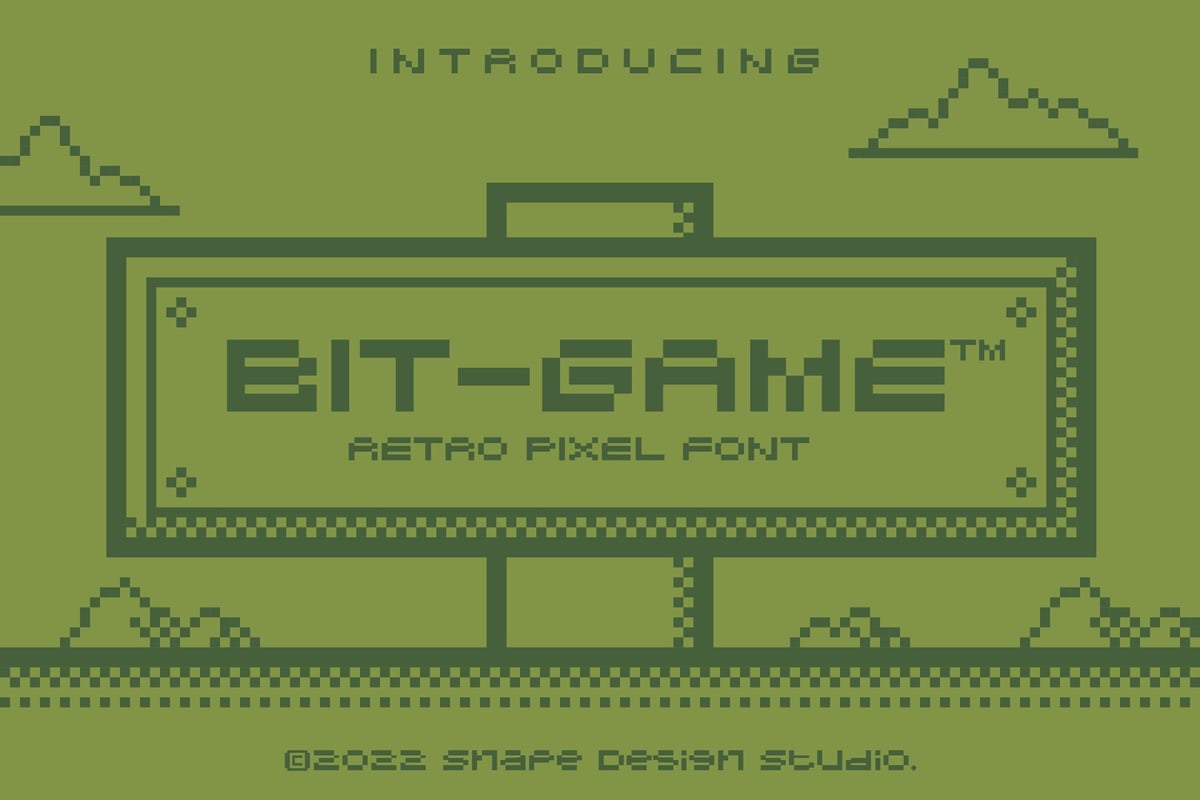
Bit Game - Retro Pixel Font
Transform your designs with authentic 8-bit nostalgia using this classic retro pixel font. Bit-Game delivers that perfect pixelated aesthetic for retro game design themes. This versatile typeface also works beautifully for movies, documentaries, films, logos, posters, games, book covers, headlines, titles and countless other creative projects. Add this font to your creative toolkit and watch how it makes your designs truly stand out with vintage gaming charm! How to use your files: Simply save t...